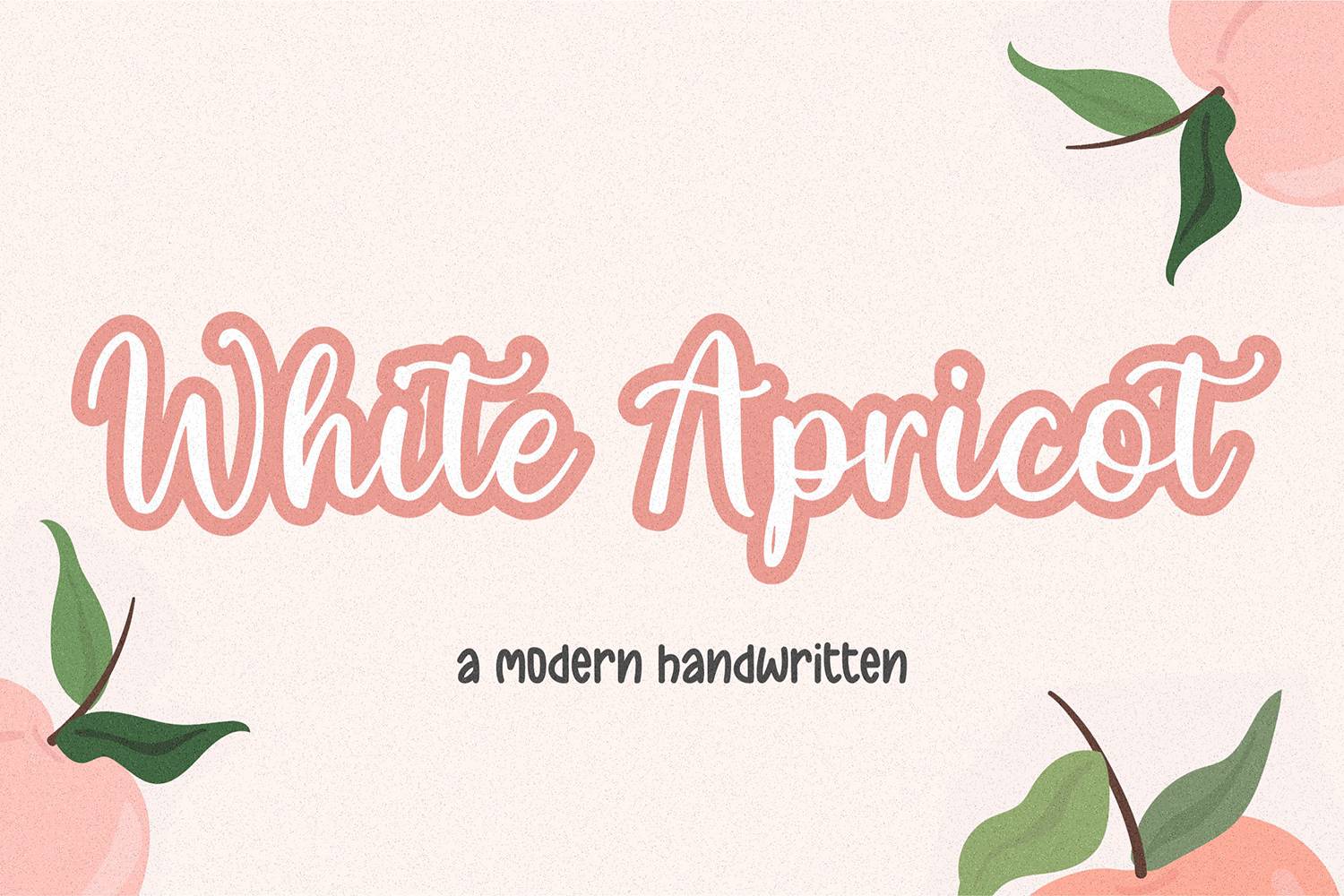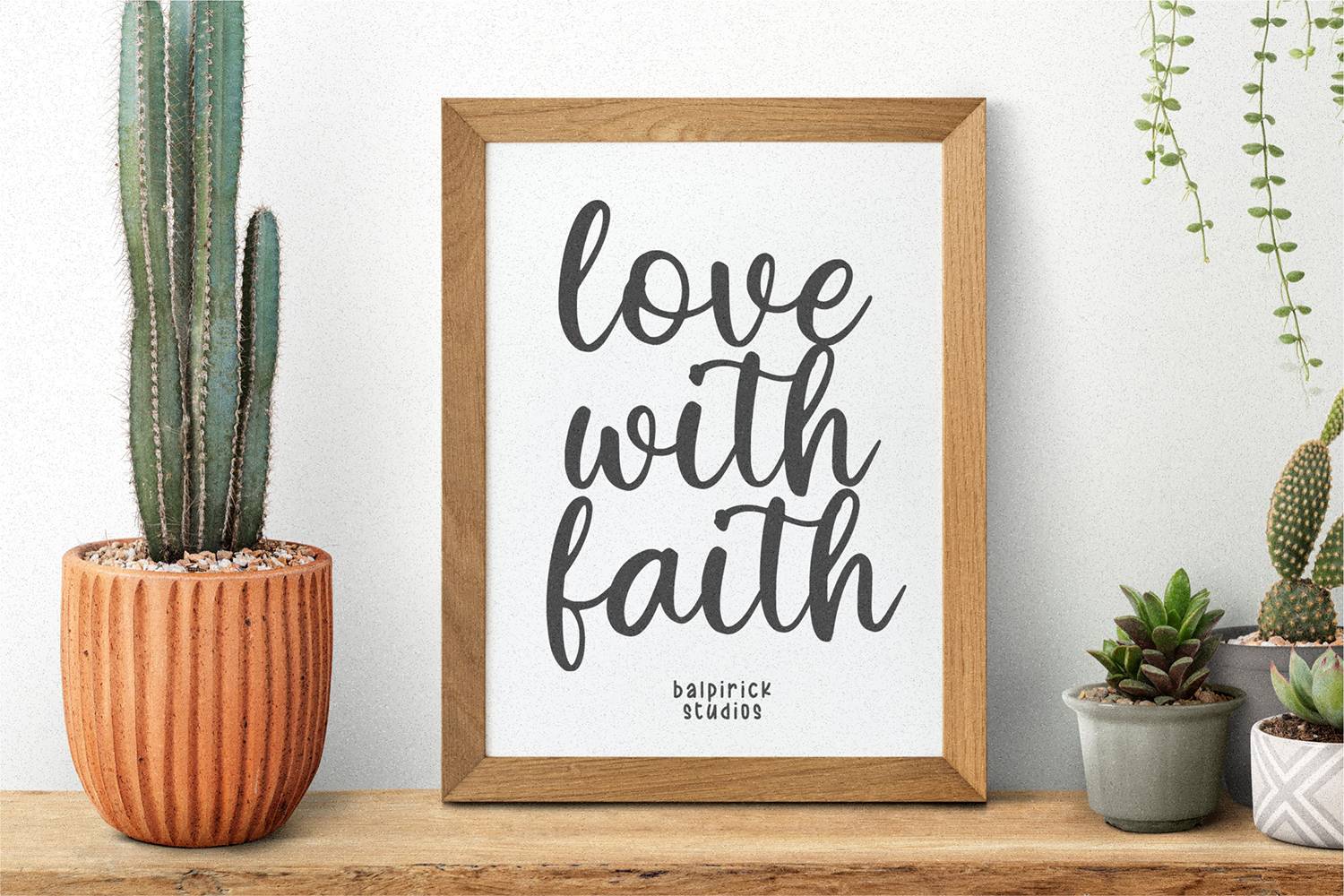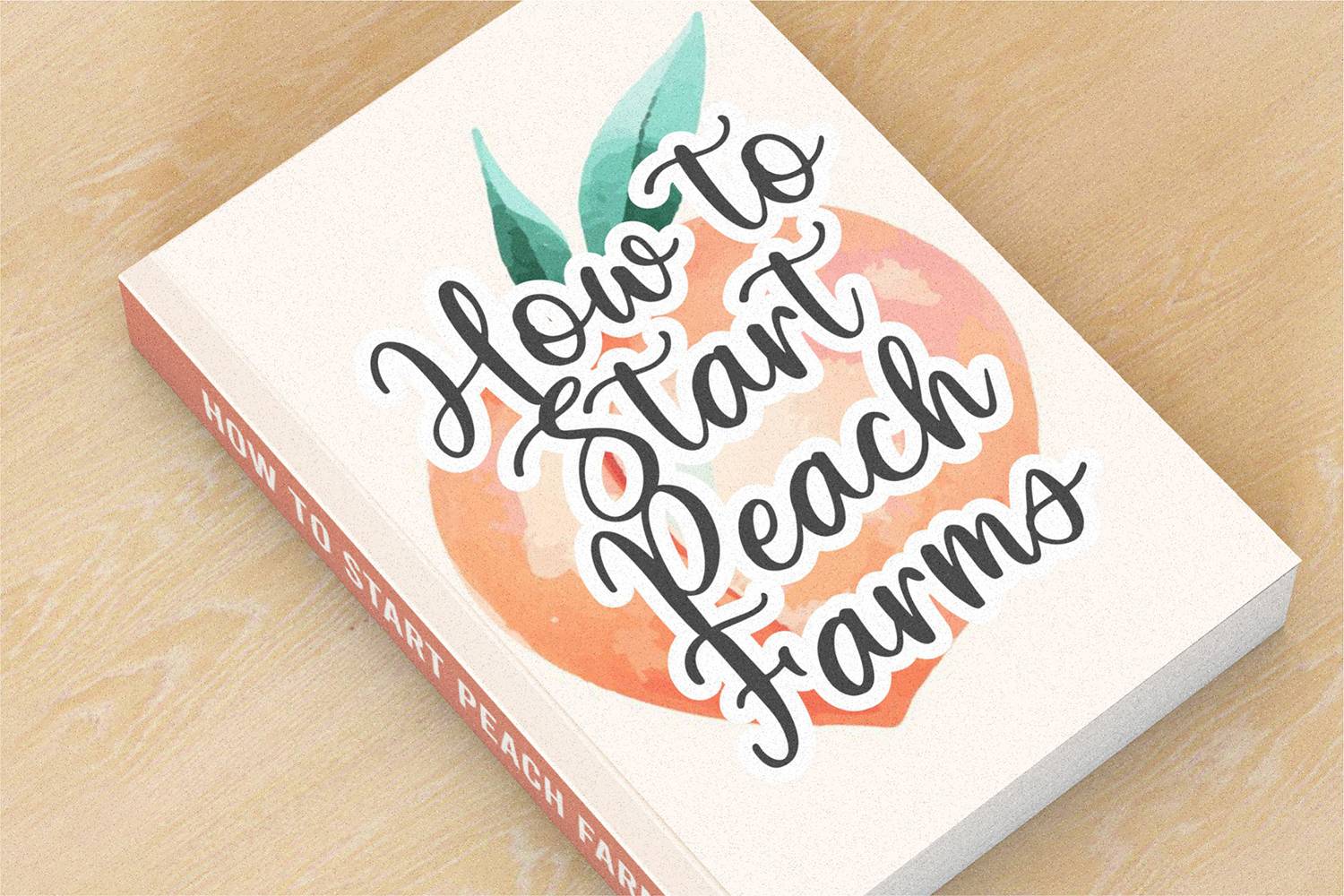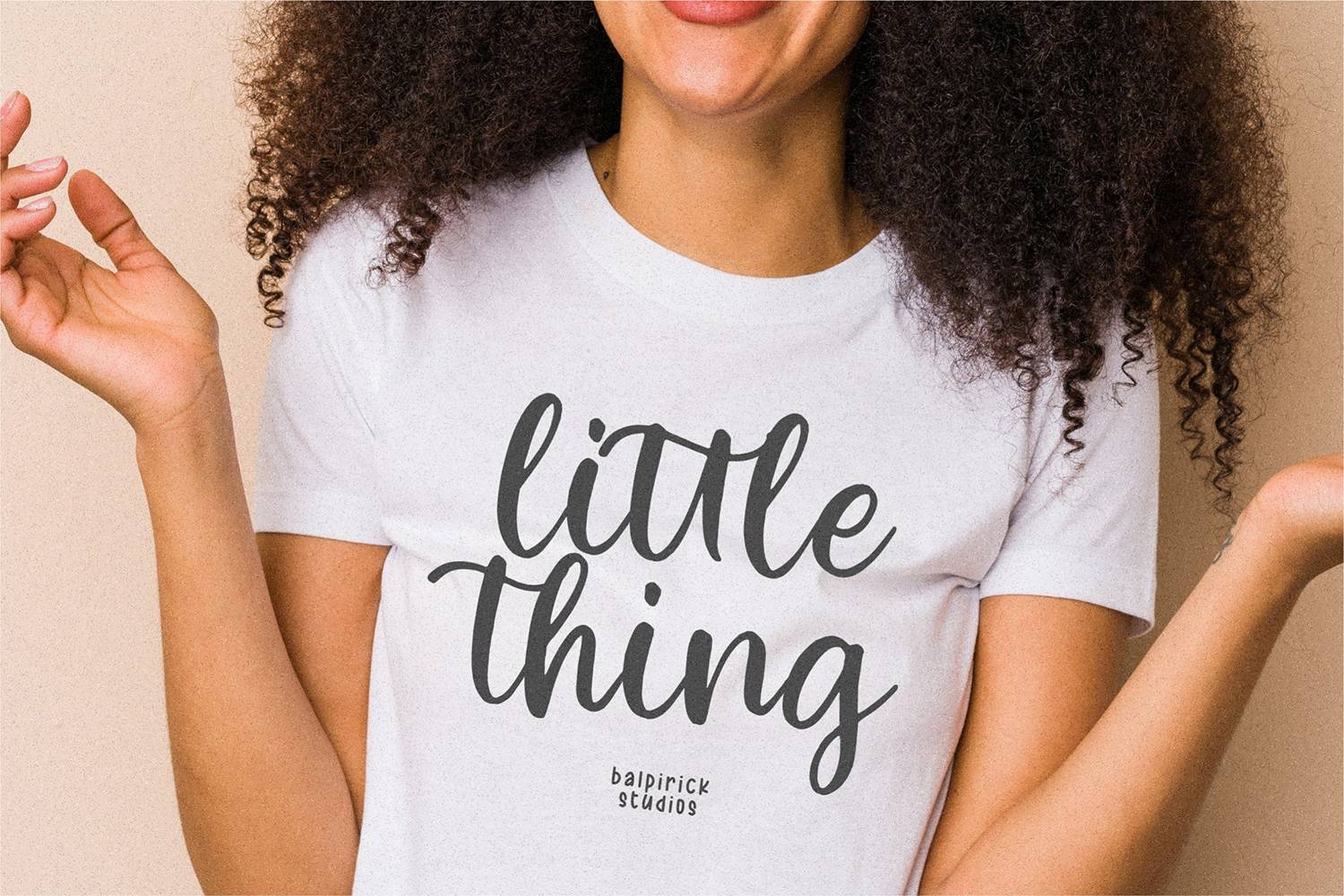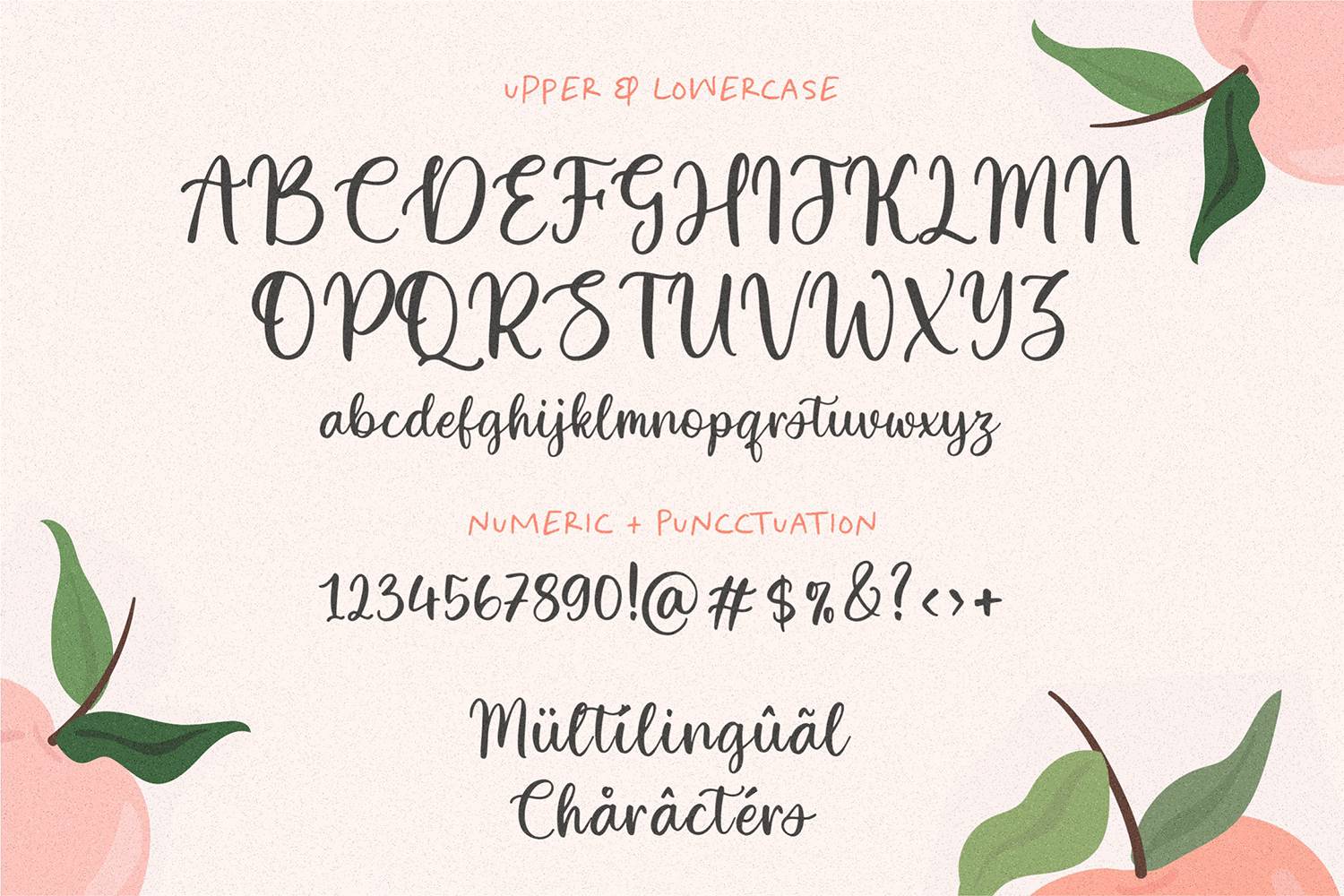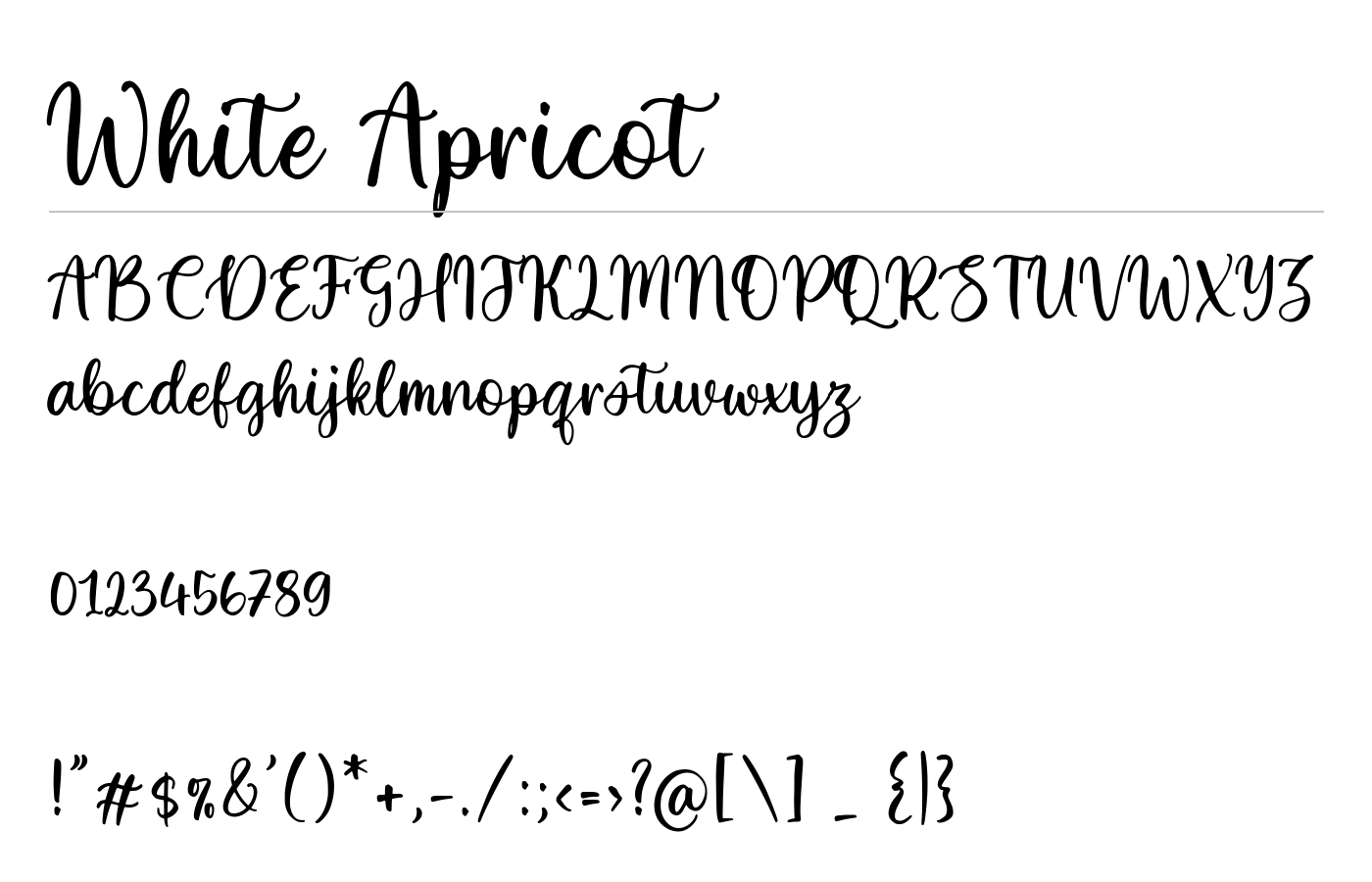
White Apricot is a lively and elegant script font characterized by its smooth, medium-weight strokes and playful, handwritten style. Featuring both uppercase and lowercase letters with gentle curves and unique flourishes, it conveys a warm and approachable personality ideal for invitations, branding, and creative projects. Its readable yet decorative forms make it perfect for adding a personal, stylish touch to logos, packaging, and social media graphics.
White Apricot Font
About White Apricot Font